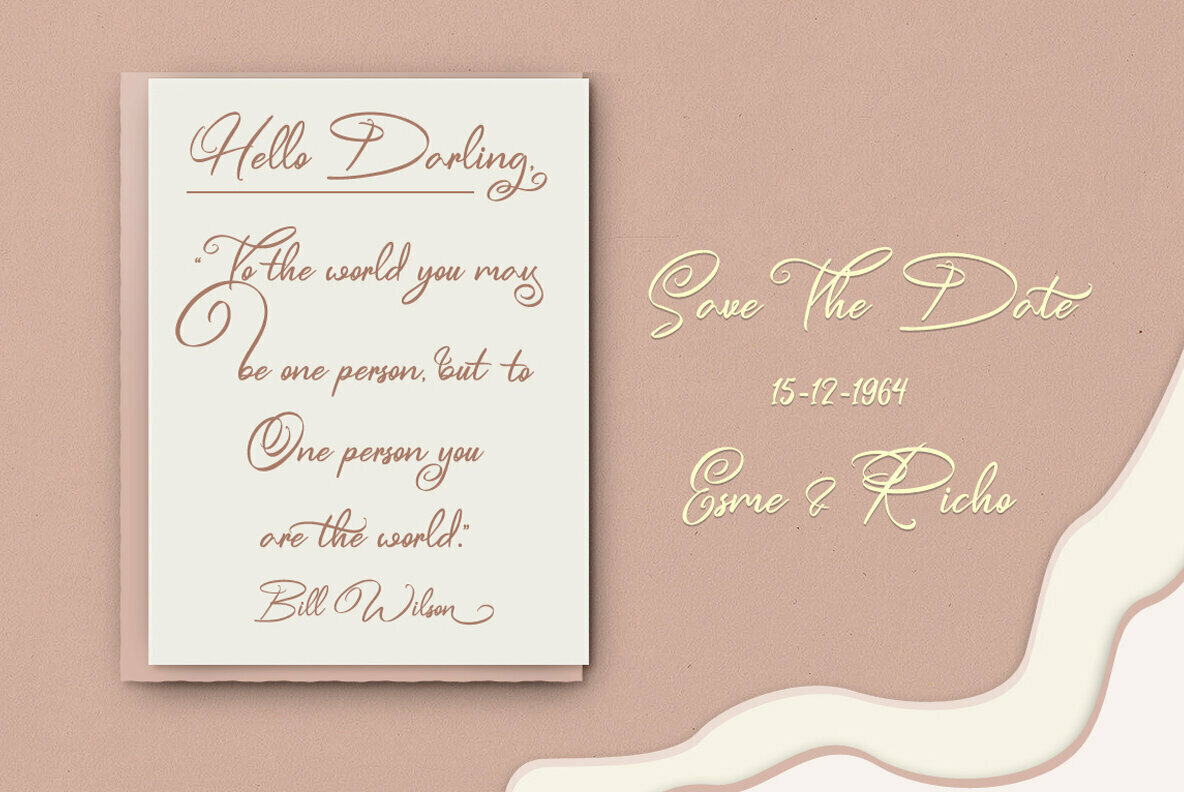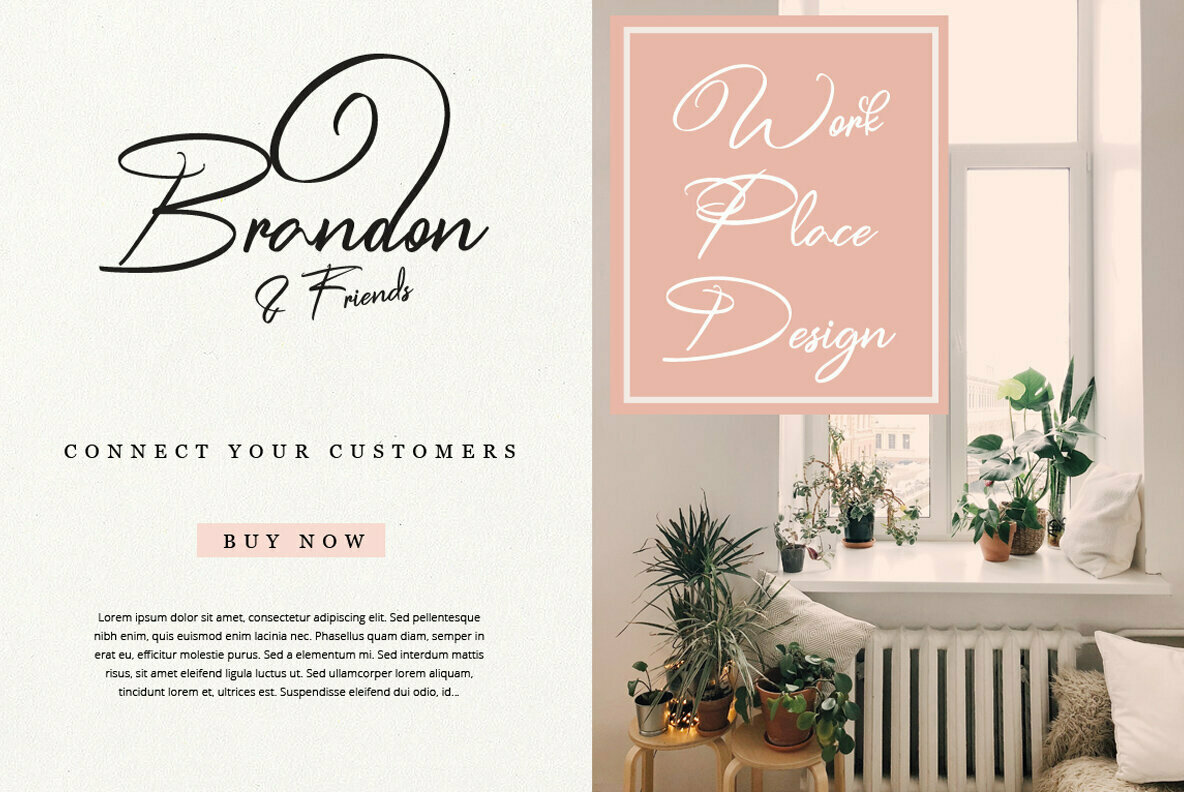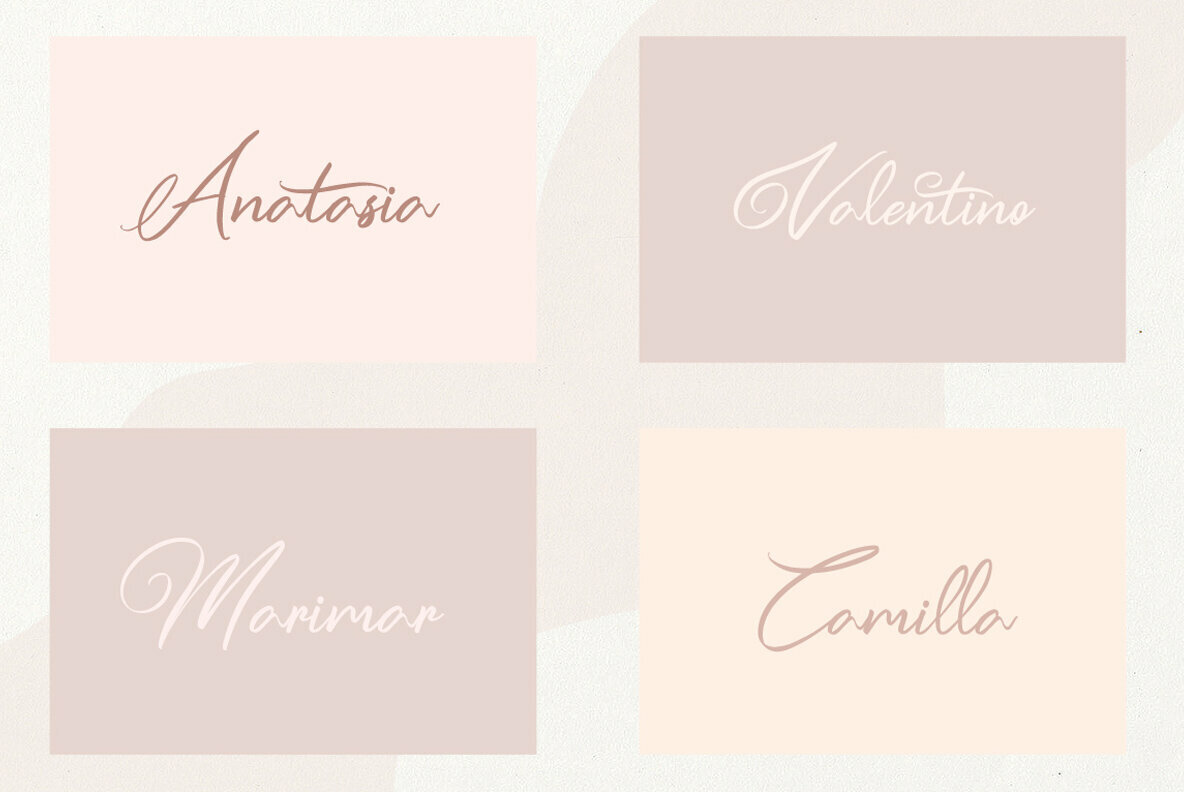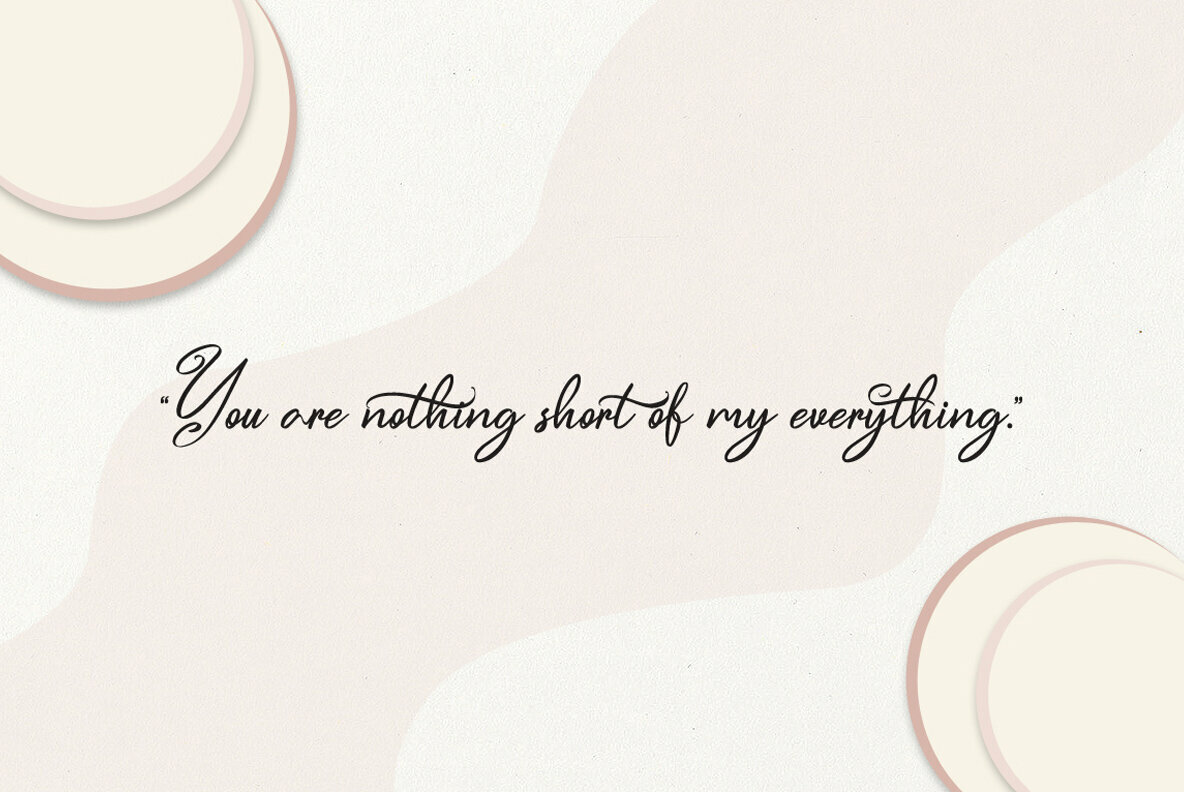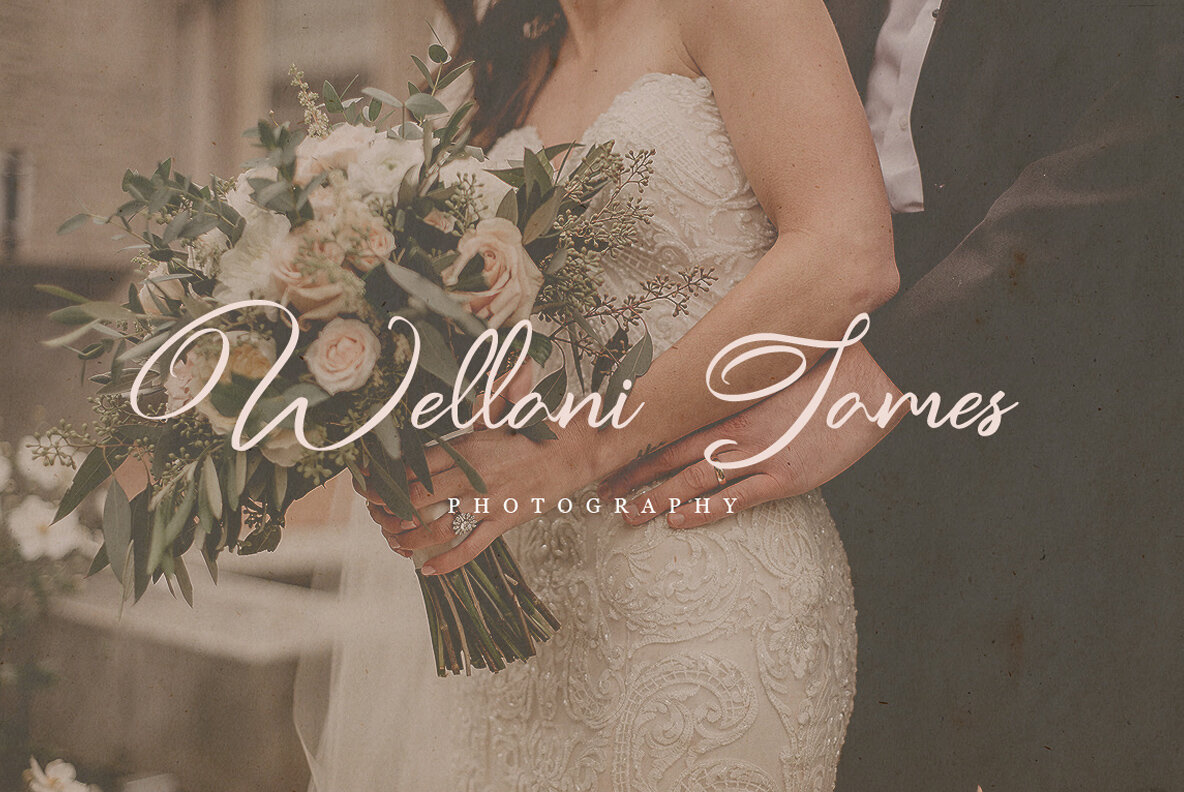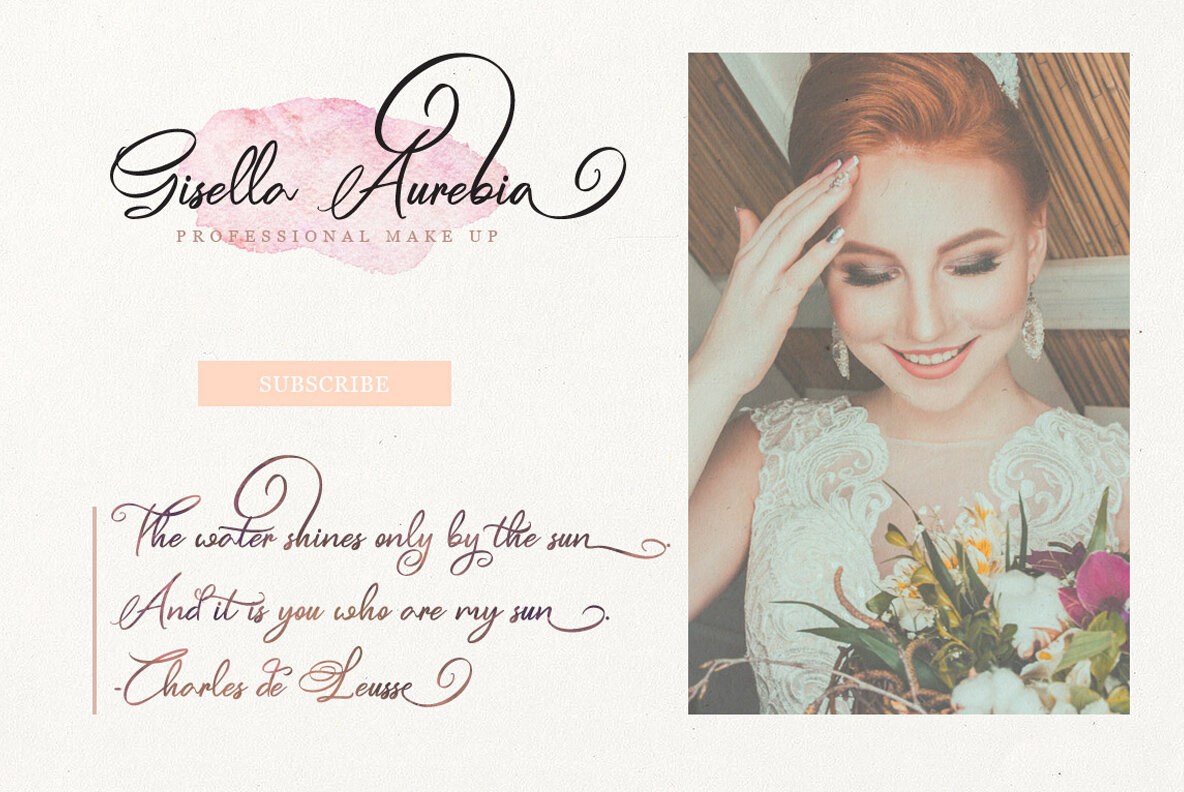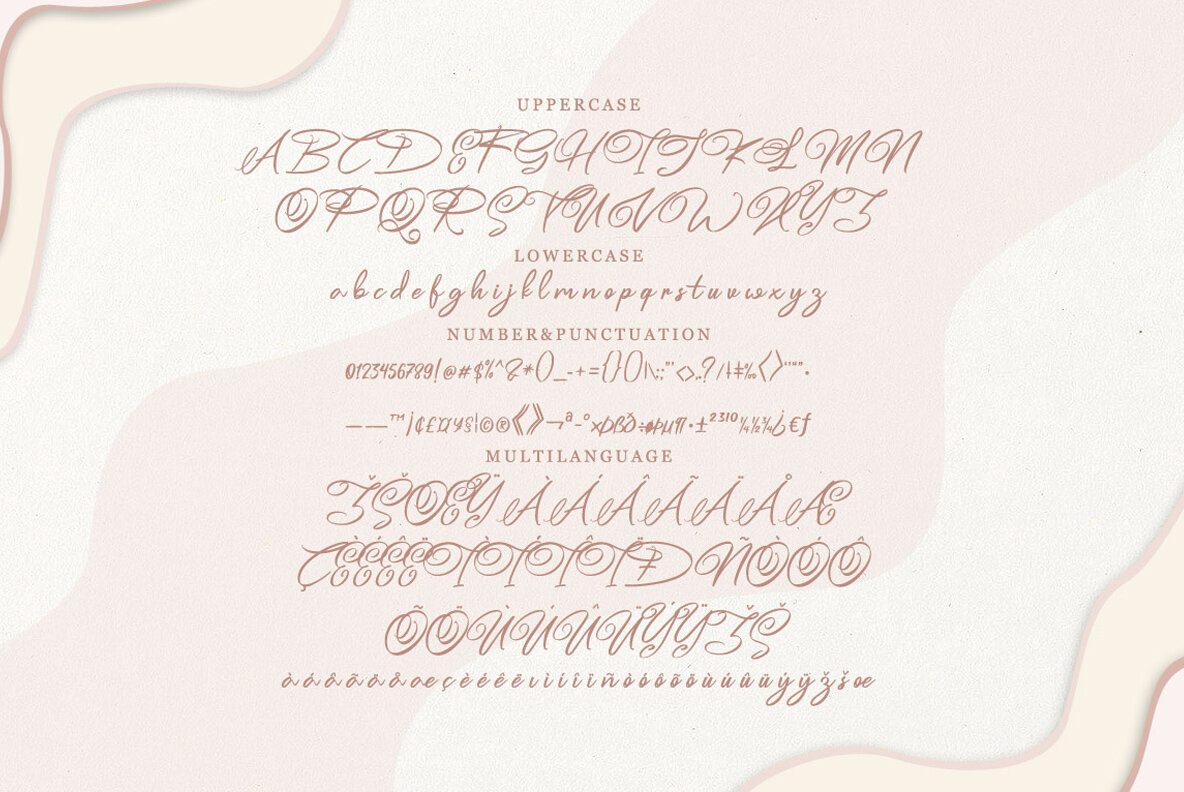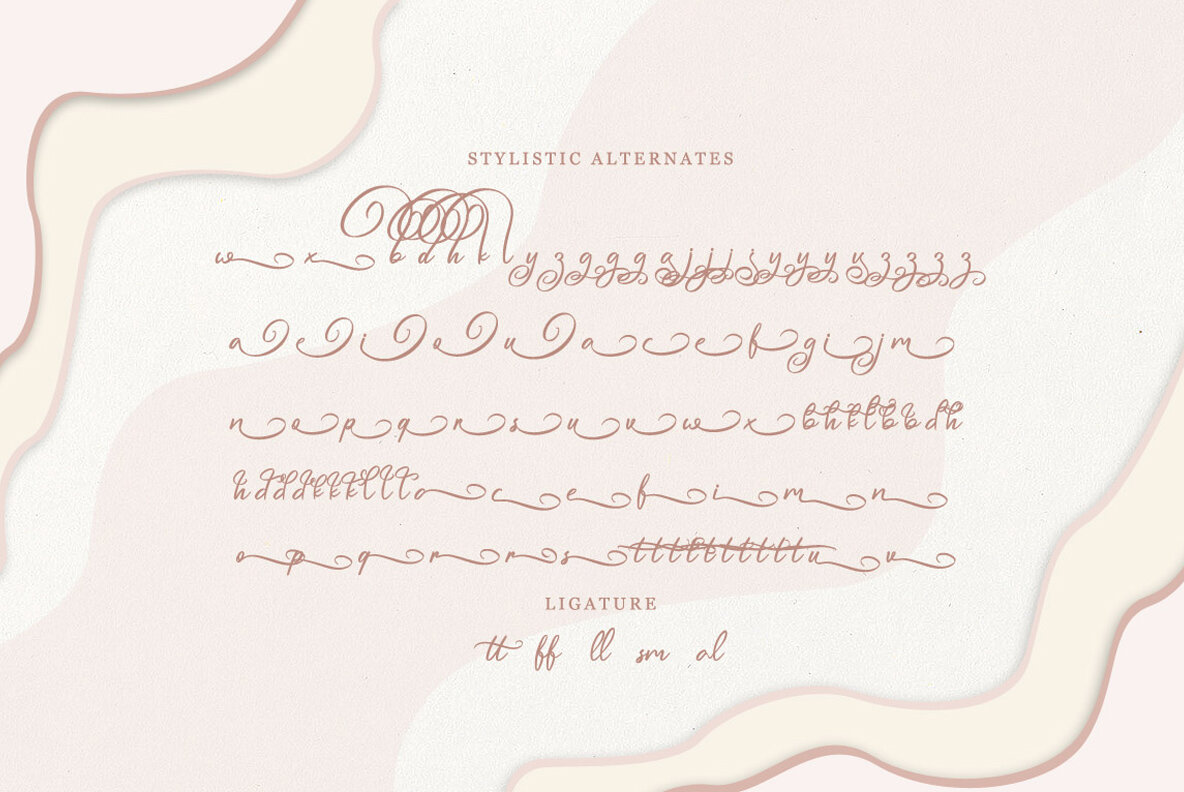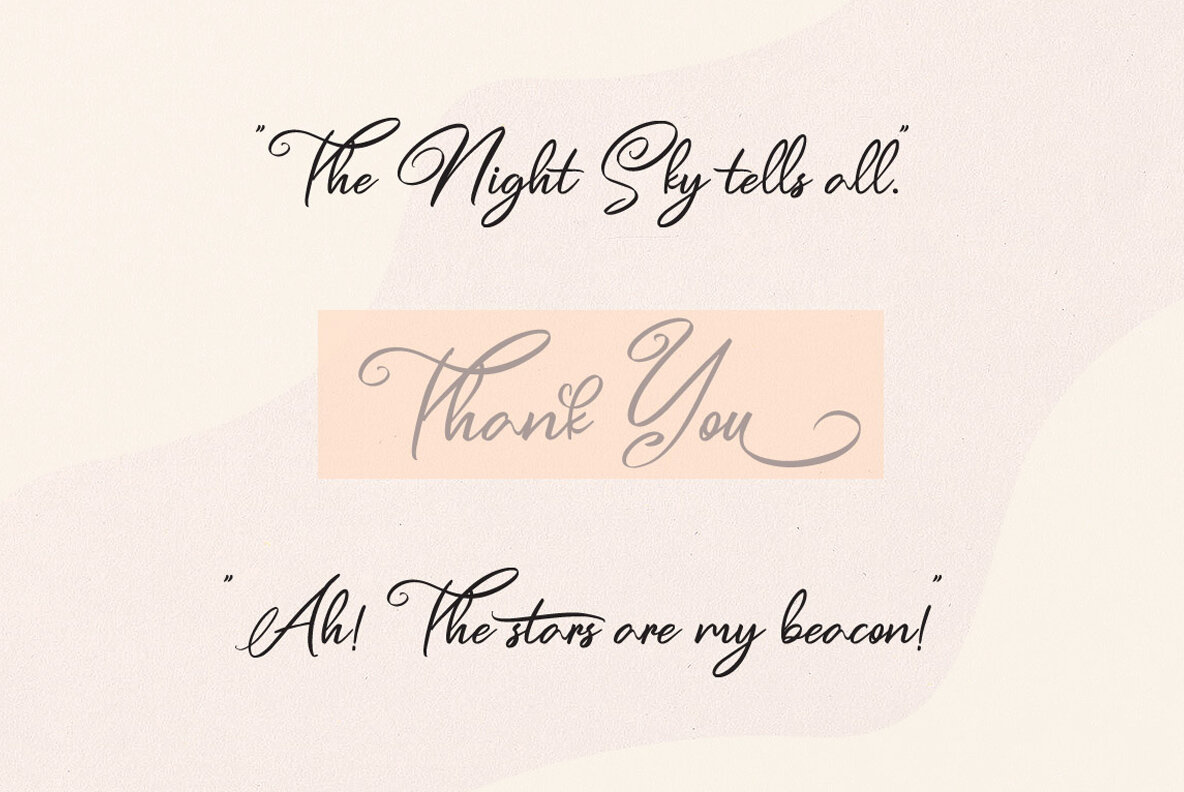
Esmetralda Font
Esmetralda
Esmetralda emerges as a script font that harmonizes handlettering with modern calligraphy flair, crafted with care for design aficionados. Its opentype feature enhances the ease and creativity of its use, making it a distinguished choice for various visual endeavors. From wedding invitations to logo and badge crafting, Esmetralda lends an aesthetic grace that speaks to both solemn occasions and contemporary design needs.Esmetralda: Handlettering Modern Calligraphy Script